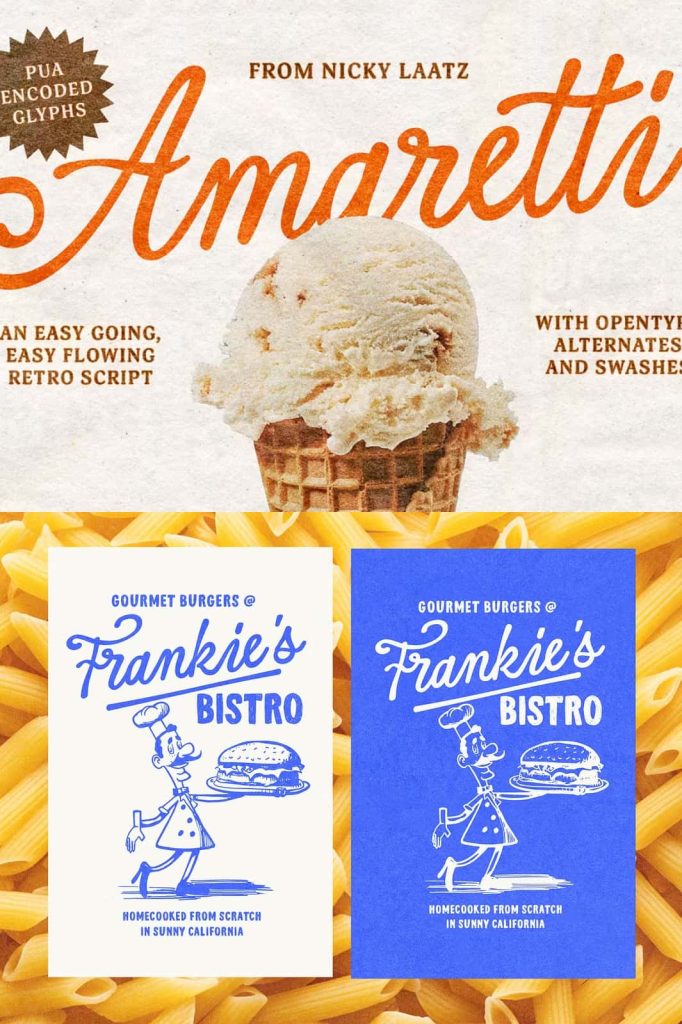
Amaretti Calligraphic Script Font: Vintage Elegance with Nostalgic Warmth
Amaretti calligraphic script font brings the charm of mid-century design into modern typography. Inspired by vintage hand-lettered advertising and signage from the 1950s, this typeface captures the essence of an era known for its expressive and decorative lettering. It delivers a smooth, flowing style that feels both elegant and inviting.
Designed to evoke emotion and visual interest, Amaretti transforms text into a captivating design element. Its graceful curves and balanced structure allow designers to create compositions that feel nostalgic while remaining polished and contemporary. This combination makes it a powerful tool for creative professionals seeking both style and substance.
Inspired by 1950s Hand-Lettered Advertising
Amaretti draws its inspiration from classic advertising and signage of the 1950s. During this era, designers used elaborate scripts to capture attention and communicate personality. These hand-crafted letterforms often conveyed warmth, charm, and a sense of familiarity.
Amaretti reinterprets these qualities for modern use. It maintains the expressive nature of vintage scripts while refining the design for clarity and versatility. This allows designers to achieve a nostalgic aesthetic without compromising functionality.
Bring Retro Design to Life
The vintage influence of Amaretti helps designers recreate the visual appeal of mid-century design. It adds a sense of history and authenticity to projects, making them more engaging and memorable.
This makes the font ideal for designs that aim to connect with audiences through nostalgia and emotional resonance.
Smooth Calligraphic Flow for Elegant Typography
Amaretti features a smooth calligraphic style that emphasizes fluid movement and natural rhythm. Each letter connects seamlessly, creating a continuous flow that enhances readability and visual harmony. This fluidity allows the text to feel cohesive and balanced.
The consistent flow also improves the overall structure of the design. It ensures that each word integrates smoothly into the layout, resulting in a polished and professional appearance.
Create Graceful and Harmonious Layouts
The flowing nature of Amaretti allows designers to build compositions that feel elegant and well-organized. It guides the viewer’s eye across the text, improving readability while maintaining visual interest.
This makes the font suitable for both decorative and functional typography.
Elaborate Script Details That Capture Attention
Amaretti incorporates subtle decorative elements that enhance its visual appeal. These details add depth and character without overwhelming the design. They reflect the craftsmanship of traditional hand-lettering, where each stroke carried intention and style.
The refined embellishments make the font stand out, especially in display applications. They draw attention while maintaining a sense of balance and sophistication.
Design with Style and Precision
The decorative features of Amaretti allow designers to create typography that feels unique and expressive. They add a layer of visual interest that elevates the overall design.
This precision ensures that the font remains elegant and readable, even with its intricate details.
Perfect for Branding, Signage, and Creative Projects
Amaretti works exceptionally well for a wide range of applications. It is ideal for branding, logos, signage, packaging, and promotional materials. Its vintage-inspired style helps create a strong visual identity that stands out.
The font is particularly effective for projects that aim to convey warmth and personality. It allows designers to communicate a sense of friendliness and authenticity through typography.
Build a Memorable Visual Identity
Using Amaretti, designers can create branding that feels distinctive and engaging. The font’s nostalgic qualities help establish a connection with the audience, making the design more impactful.
This makes it a valuable asset for businesses and creative professionals.
Versatile Across Digital and Print Media
Amaretti performs well across both digital and print platforms. Its clear structure ensures readability, while its decorative elements maintain visual interest. Whether used on websites, posters, or product packaging, the font delivers consistent results.
This versatility makes it a reliable choice for designers working across different mediums. It supports a wide range of creative applications without compromising quality.
Maintain Consistency and Style
The cohesive design of Amaretti helps unify different elements within your projects. It ensures that your typography remains consistent, enhancing the overall visual experience.
This reliability allows designers to focus on creativity while maintaining a professional standard.
Why Choose Amaretti Calligraphic Script Font?
Amaretti calligraphic script font offers a perfect combination of vintage inspiration, elegant design, and modern usability. Its smooth flow, decorative details, and nostalgic charm make it an excellent choice for designers who want to create expressive and refined typography.
By choosing Amaretti, you gain a typeface that enhances both visual appeal and emotional connection. It allows you to produce designs that feel warm, stylish, and memorable. For branding, signage, and creative projects, Amaretti delivers consistent and inspiring results.